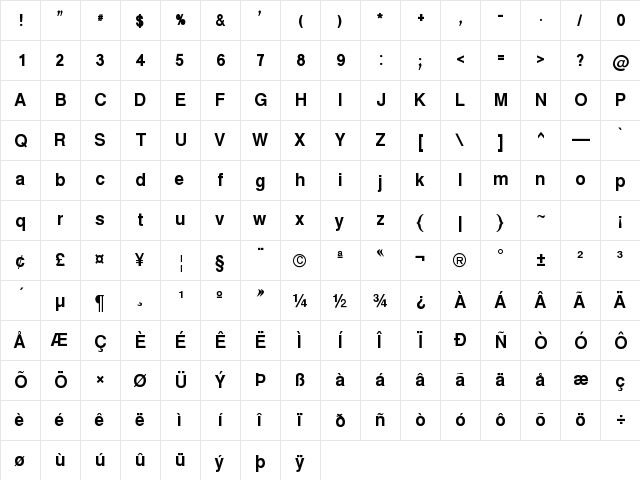
WinSoft Pro Bold
Design Context for WinSoft Pro Typeface
WinSoft Pro takes a measured approach to typography — its balanced proportions and neutral character make it a reliable workhorse for both digital and print work. The heavy weight commands attention and anchors typographic hierarchies.
Pro Tip: Pair WinSoft Pro with a font of contrasting weight or personality to build a more expressive typographic hierarchy.